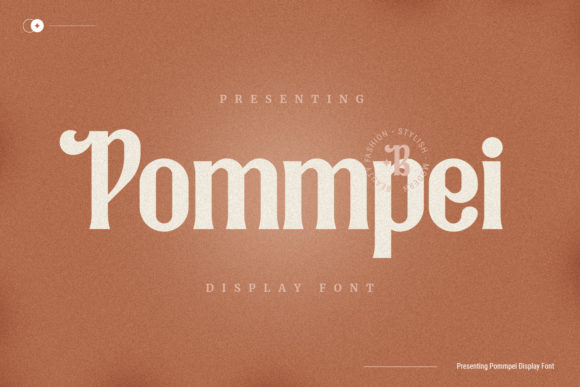
Introducing the Pommpei Font: A Typographic Masterpiece for Evoking Love and Romance
Embark on a journey of heartfelt expression with Pommpei, a display font crafted to capture the essence of love and romance. Experience the power of words as they transform into captivating visuals, igniting emotions and leaving an unforgettable impression. Dive into the realm of creativity, where individuality flourishes, and see your messages take on a life of their own.
Pommpei's bold and thick lettered design exudes an aura of confidence and strength. Each letter, meticulously shaped, commands attention and demands to be noticed. Unleash your inner artist and let your imagination soar as you witness the seamless fusion of elegance and edginess. With Pommpei, your words will transcend boundaries, becoming captivating works of art that resonate with your audience.
As a display font, Pommpei thrives in the spotlight, demanding attention with its distinct and alluring presence. Its imposing nature makes it the perfect choice for creating striking headlines, eye-catching posters, and captivating social media graphics. Elevate your brand's identity, capture the hearts of potential customers, and leave a lasting impact that lingers long after the final word is read.
Step into a world where emotions ignite, where passion dances on the page, and where love's sweet symphony finds its voice. Allow Pommpei to serenade your audience with its enchanting allure. With every stroke of the pen, witness the transformation of ordinary text into an extraordinary symphony of visual delight.